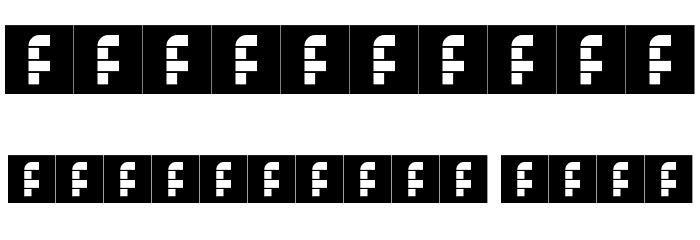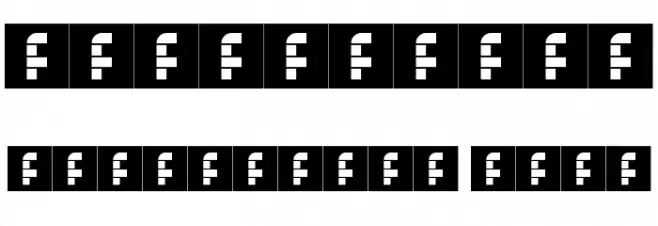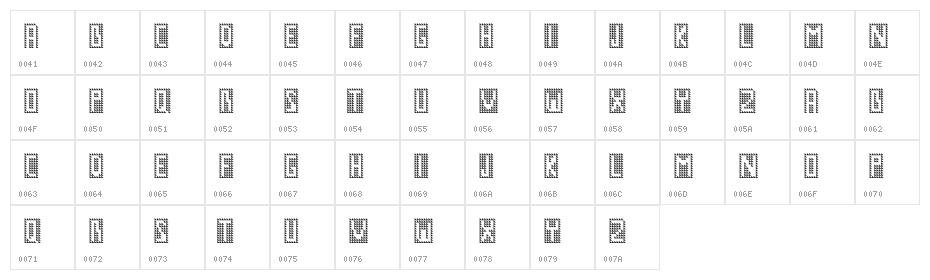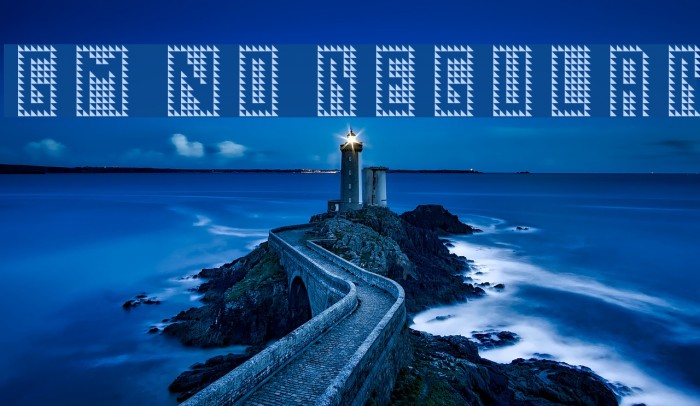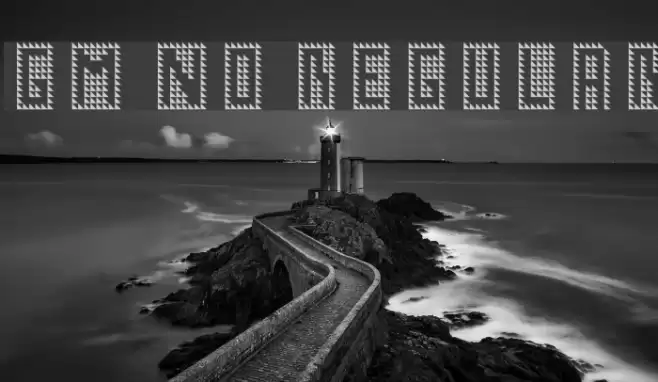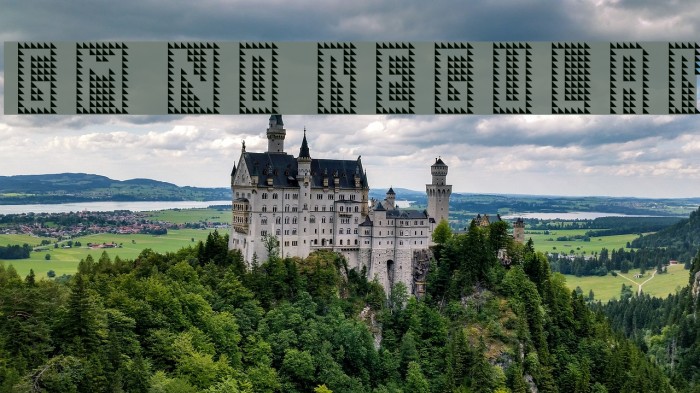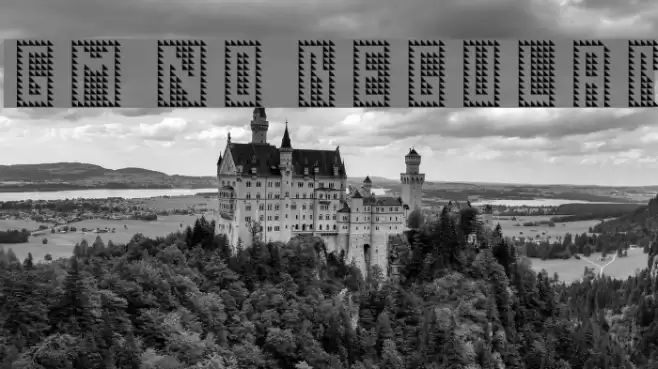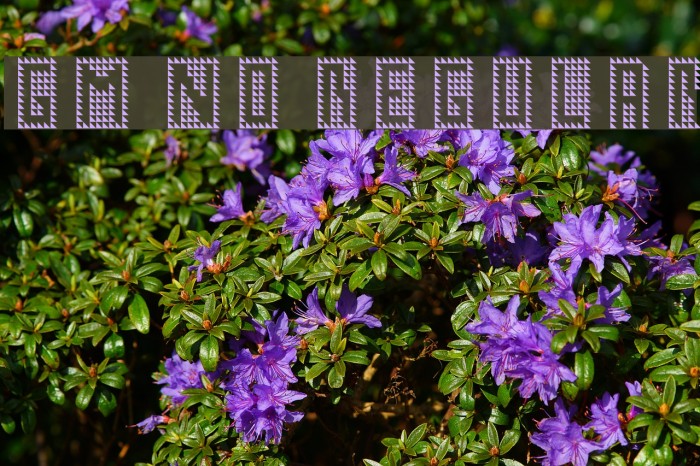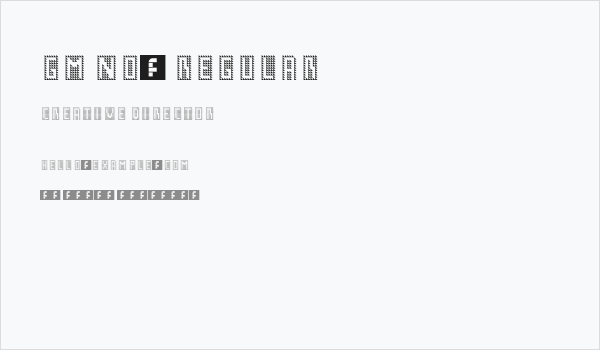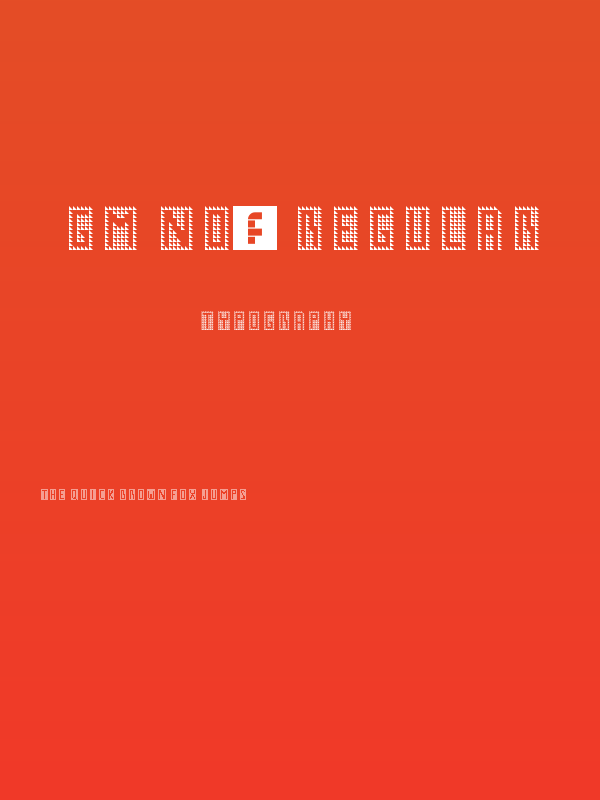
GM No1 Regular Font
GM No1 Regular Description
This font features a bold and striking design with a unique pattern of triangular shapes filling each character. The geometric style gives it a modern and edgy appearance, making it stand out in any design. The uppercase and lowercase letters maintain a consistent height and width, creating a uniform look across the text. The numbers and special characters follow the same design principles, ensuring cohesion throughout. This font's distinct style is perfect for projects that require a strong visual impact.
| Proposed Projects | Ideal for branding, posters, album covers, and any design needing a bold statement. |